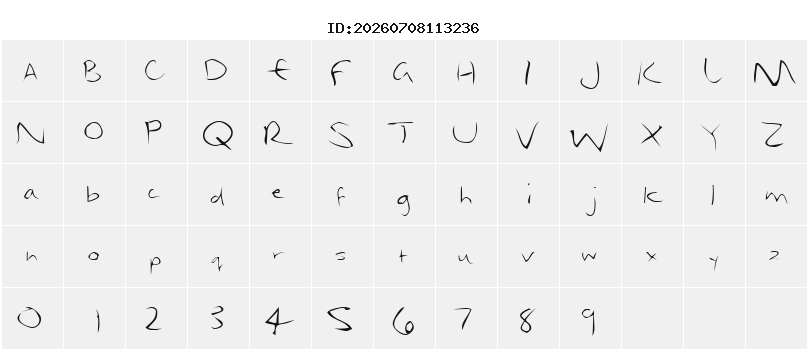
Dael Preview
• Font Name: Dael
• Full Font Name: Dael
About Dael.ttf
Dael.ttf is a modern, elegant sans-serif font designed for ultimate readability and visual harmony. Perfect for branding, headlines, web design, and print materials.